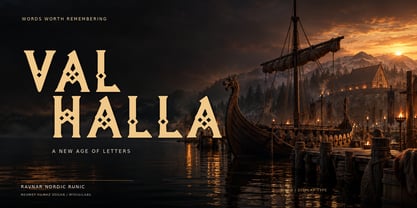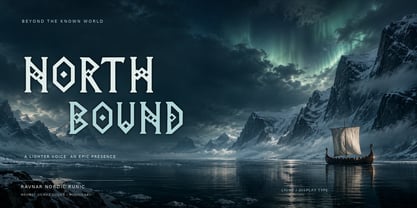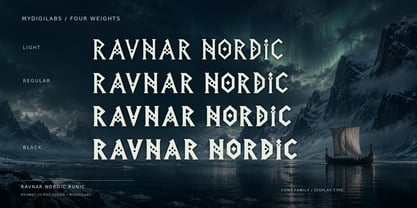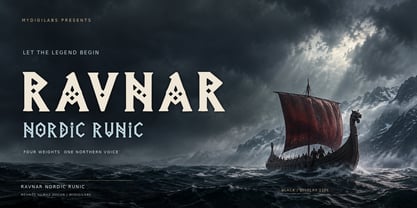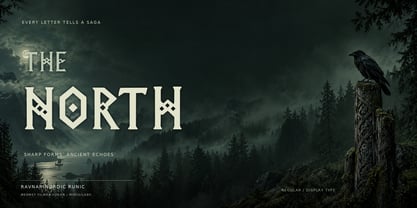
Ravnar Nordic Runic
Ravnar Nordic Runic is a decorative display family inspired by the angular rhythm of Nordic lettering. Pointed terminals, sculpted silhouettes and diamond-shaped ornaments give its Latin letterforms a strong identity for cinematic titles, fantasy artwork, game branding, book covers and expressive logos.
Four weights — Light, Regular, Bold and Black — offer different voices within the same visual language. Use Light for atmospheric titles, Regular for distinctive headlines, Bold for dramatic compositions and Black for a commanding focal point. The family includes uppercase and lowercase Latin letters, numerals and selected punctuation. Its runic inspiration is expressed through Latin letterforms; it does not include a historical Runic Unicode alphabet.